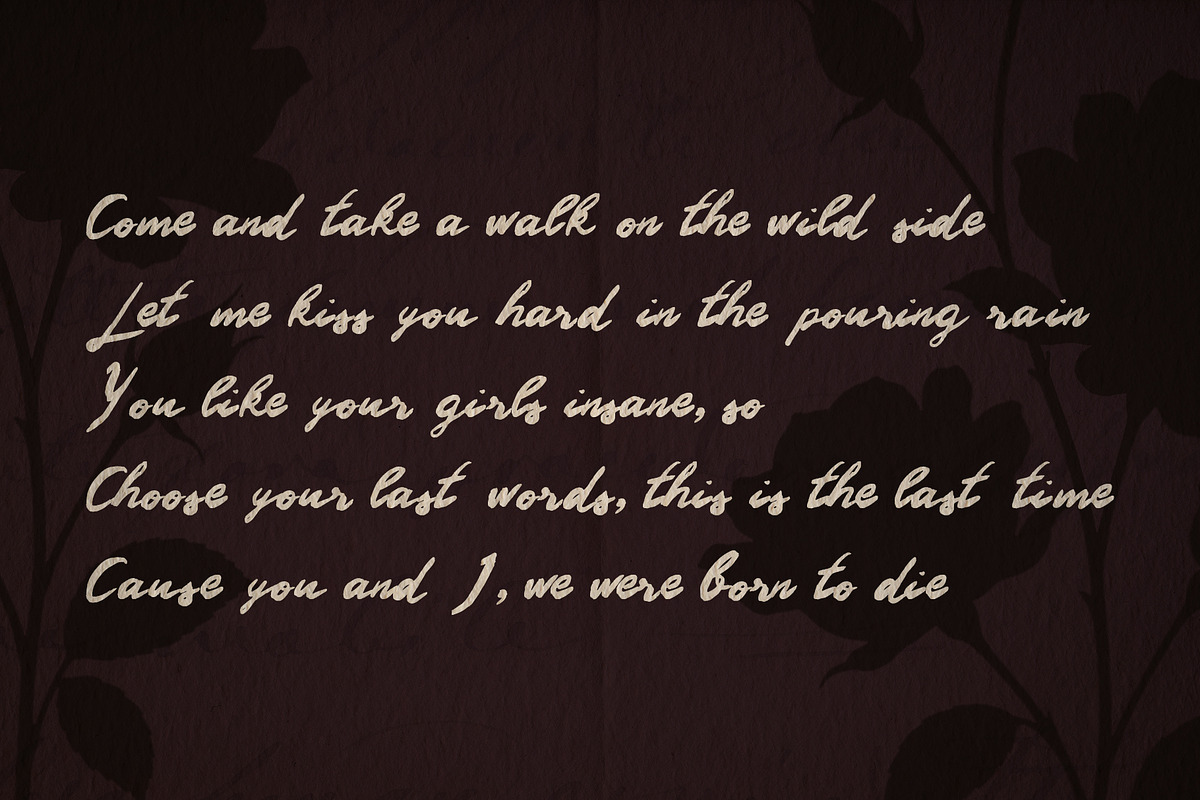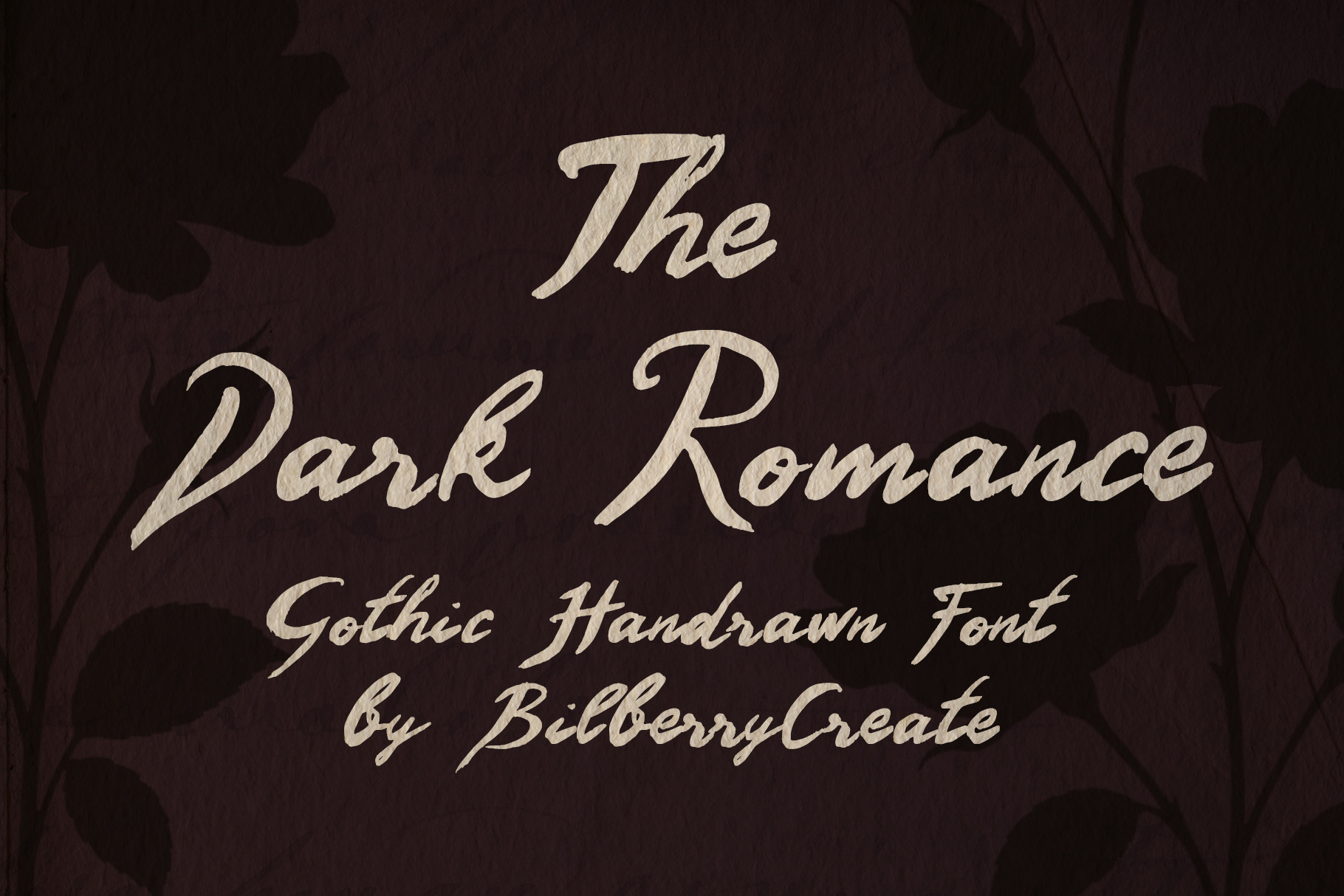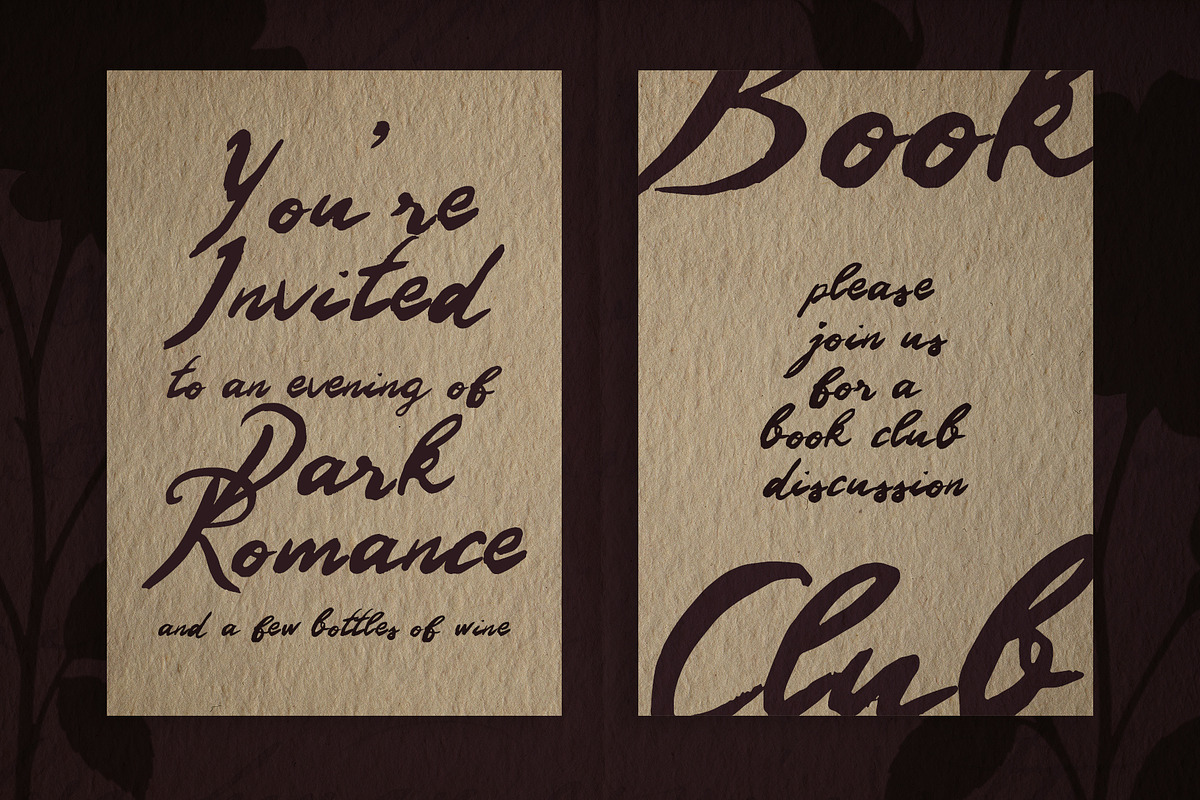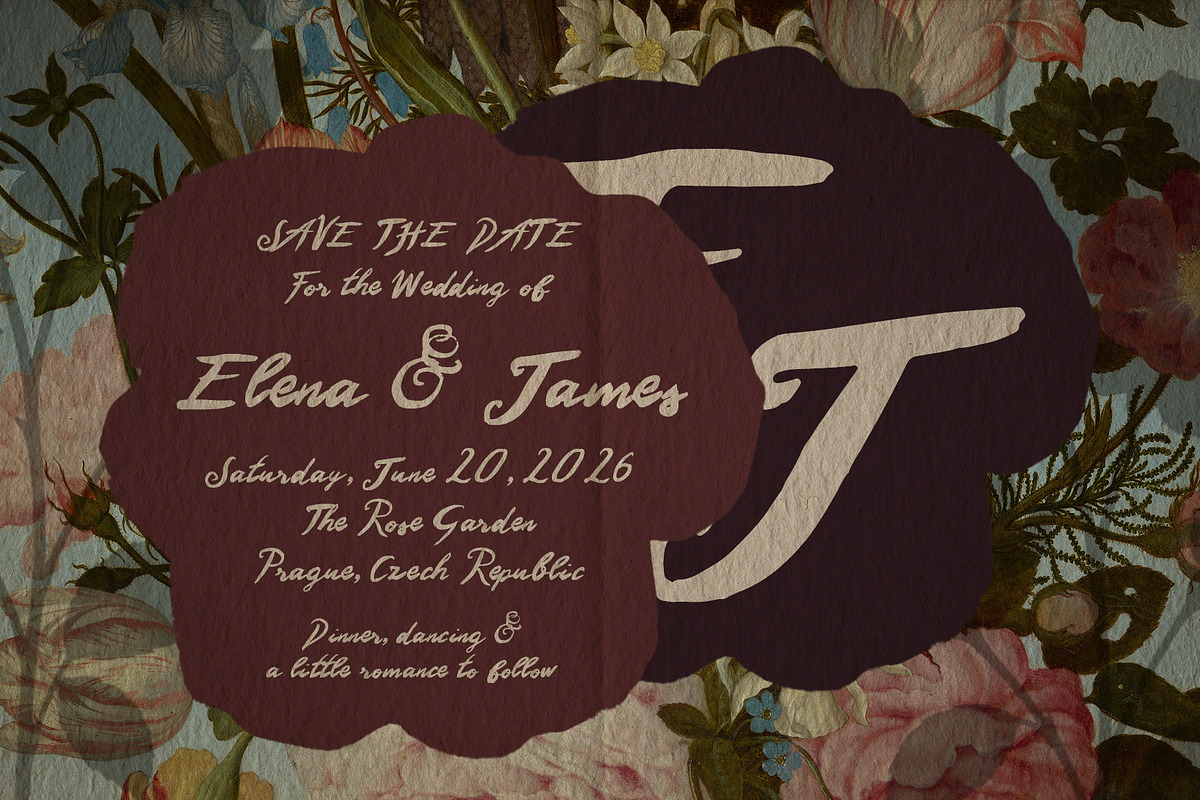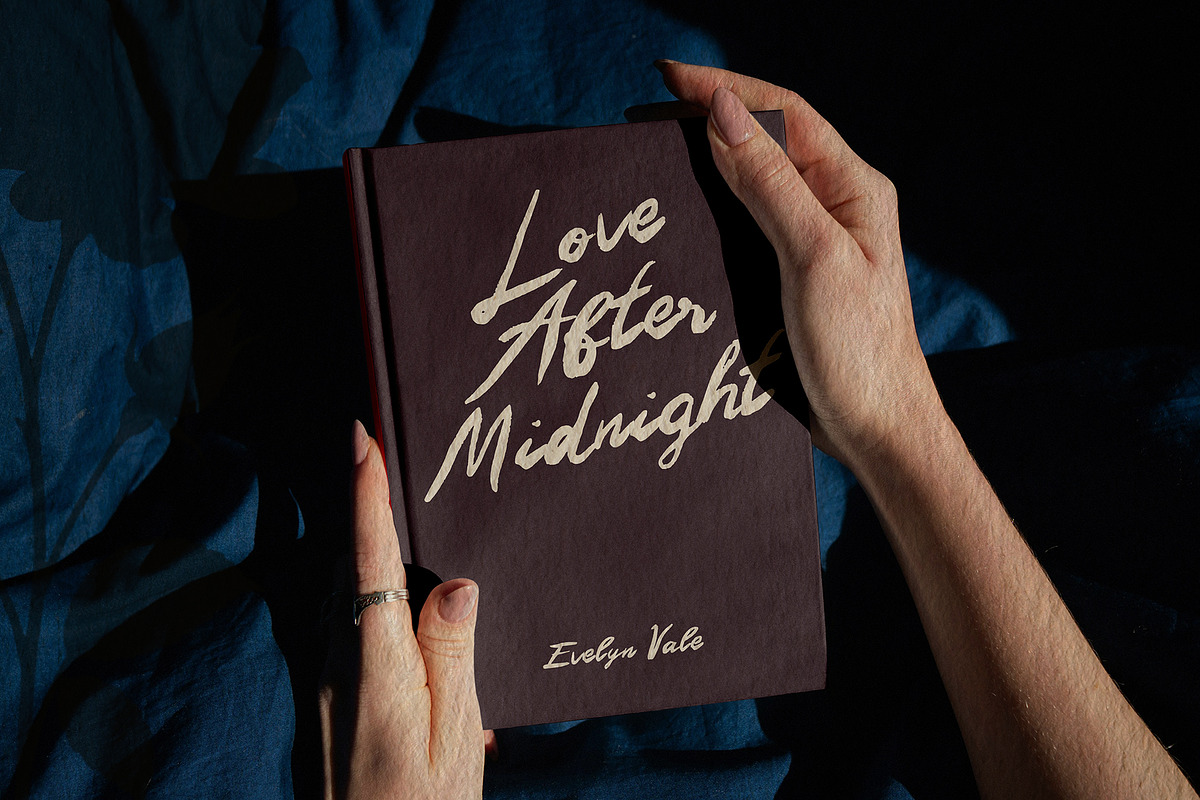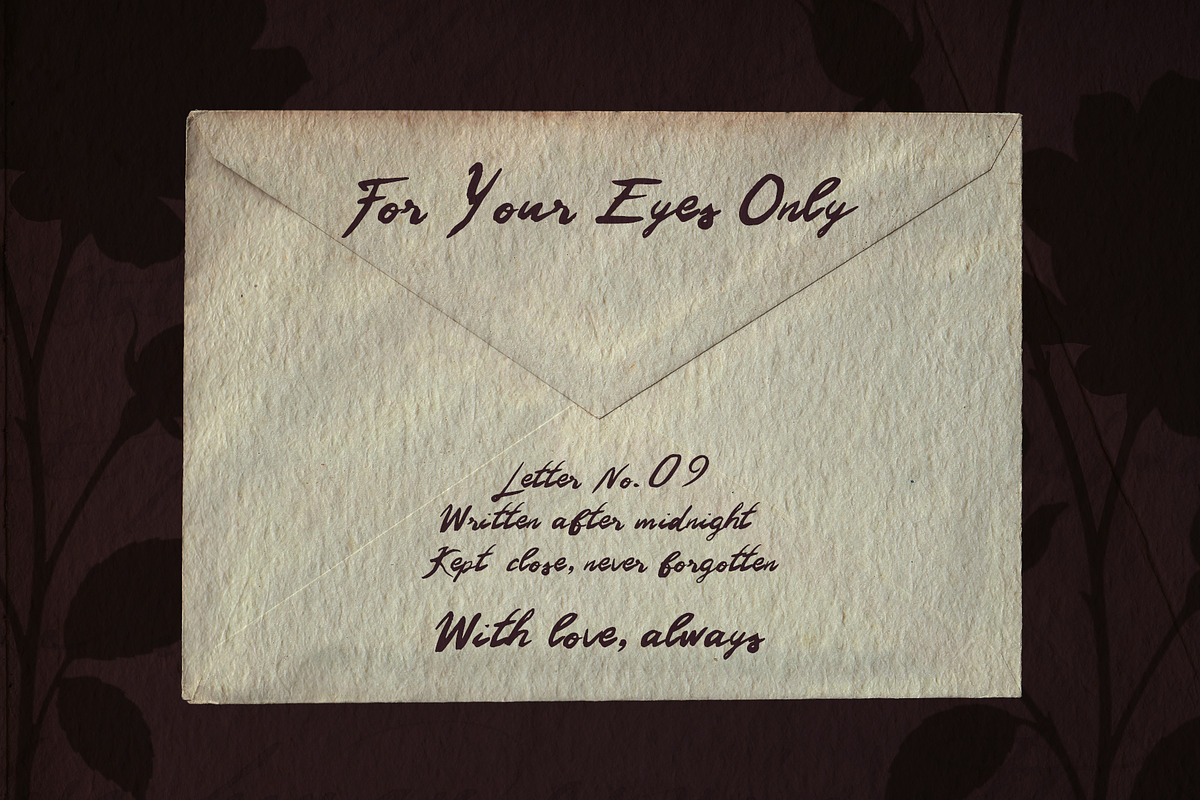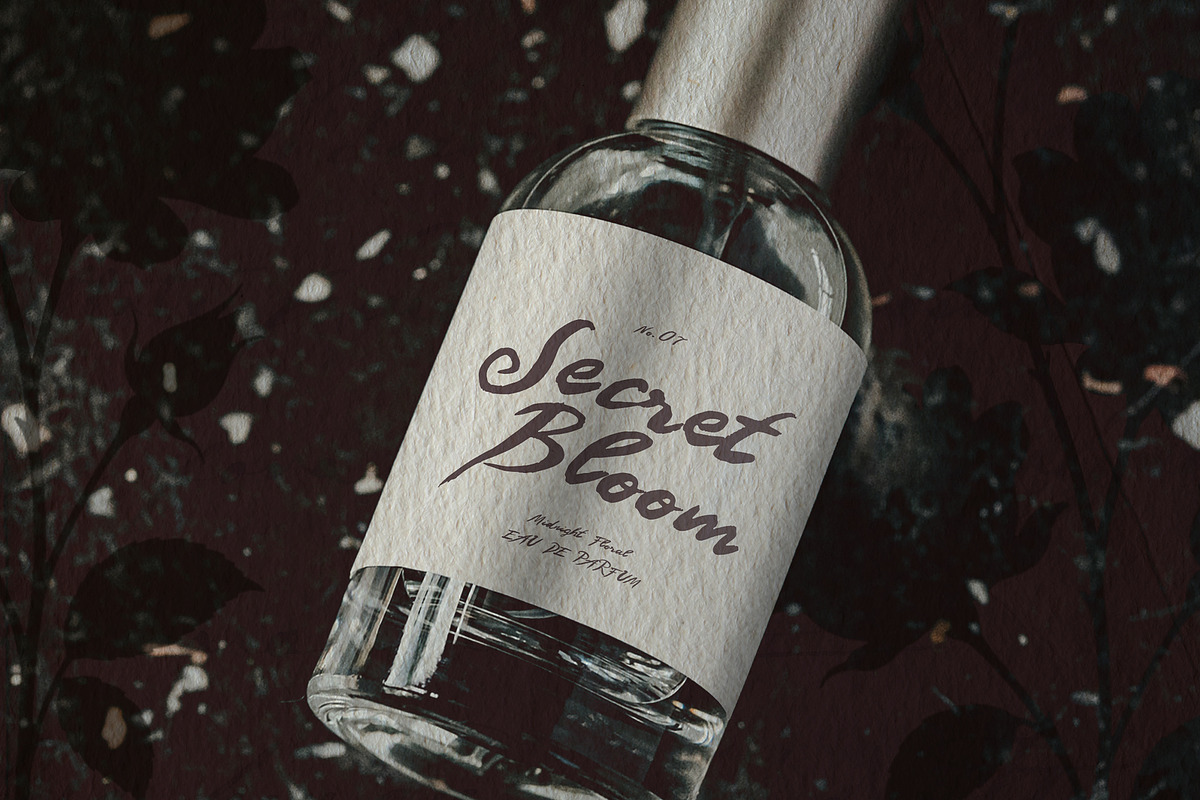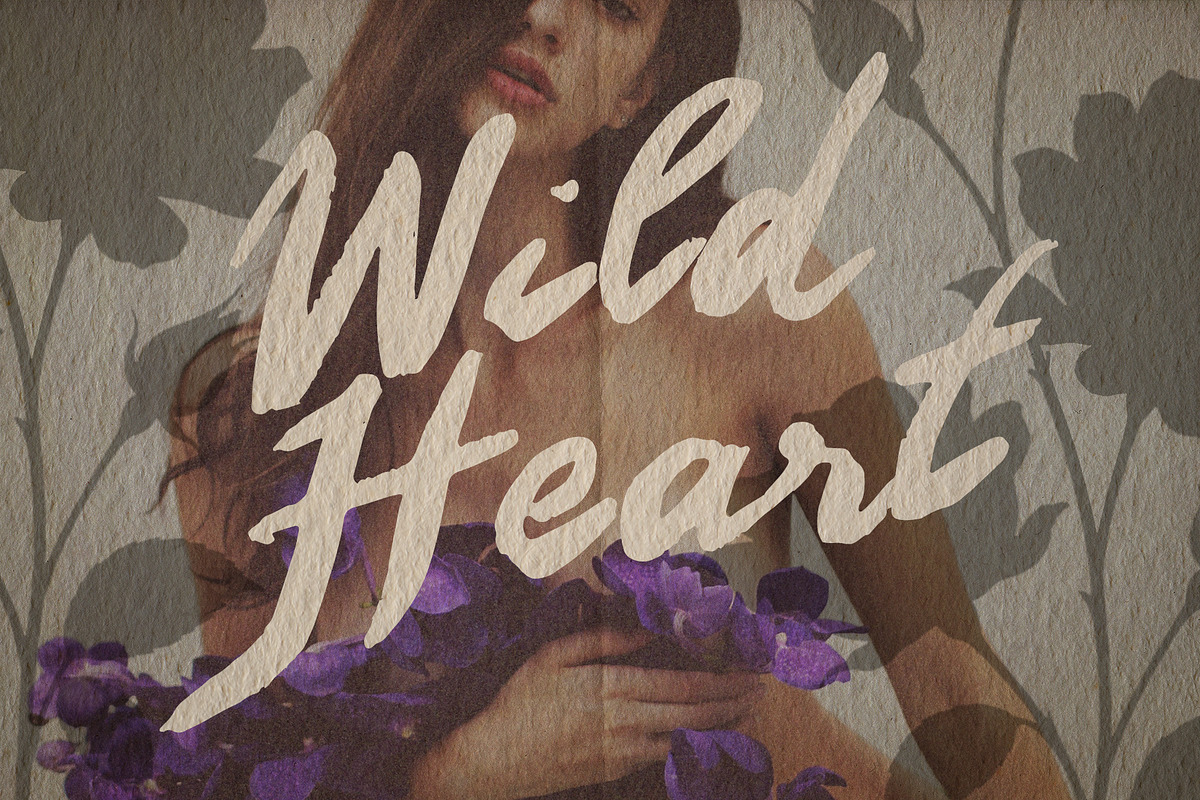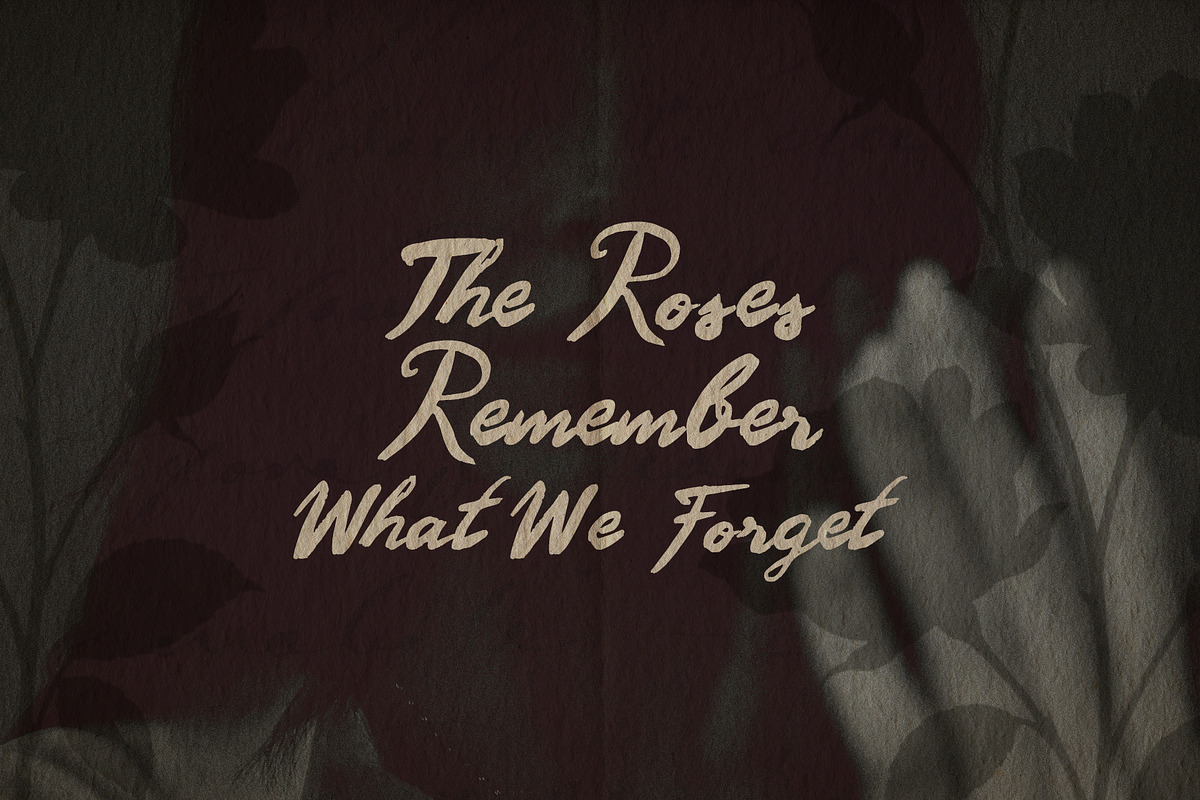
Dark Romance Gothic Font
Dark Romance is an expressive handwritten font with a raw, romantic and slightly gothic character.
Inspired by vintage love letters, old books, handwritten notes and dark editorial aesthetics, it combines elegant movement with imperfect, organic strokes.
It works especially well for book covers, posters, wedding stationery, invitations, packaging, branding, fashion projects, social media graphics and editorial design.
Dark Romance is made for projects that need emotion, atmosphere and a strong handmade feel.
Perfect for: book covers, wedding invitations, romantic branding, posters, packaging, editorial layouts, fashion design, quotes and social media.